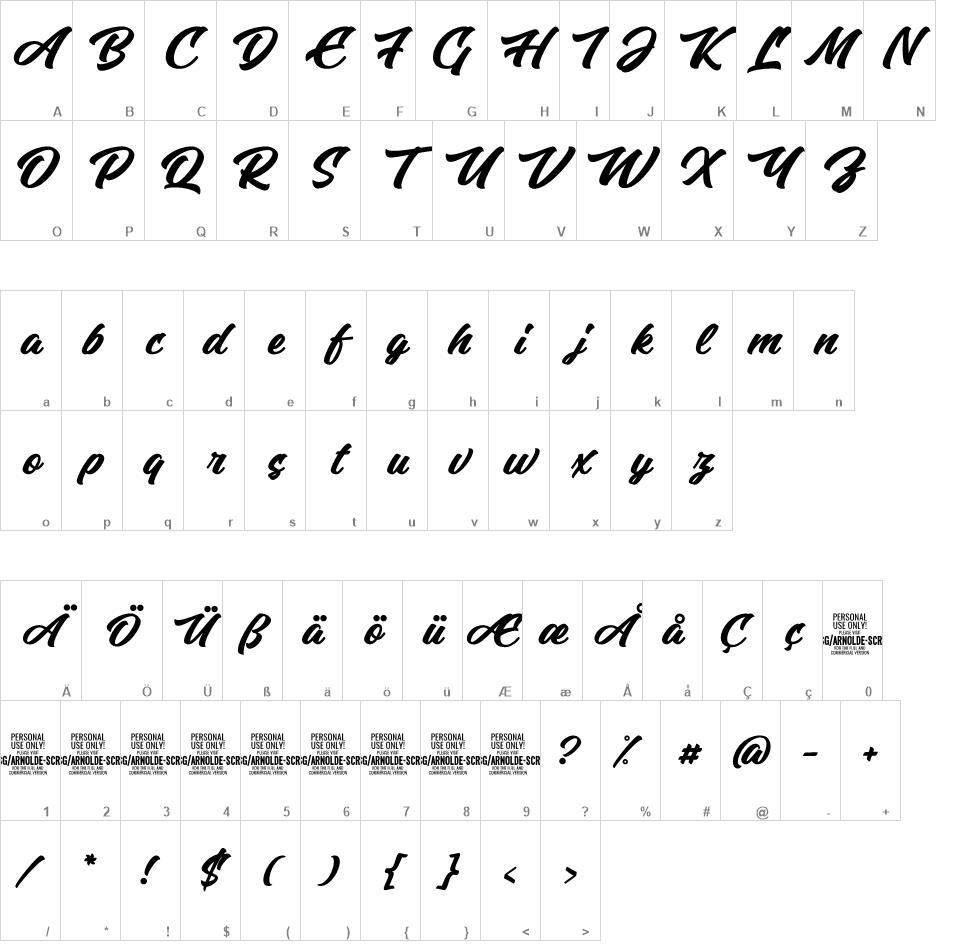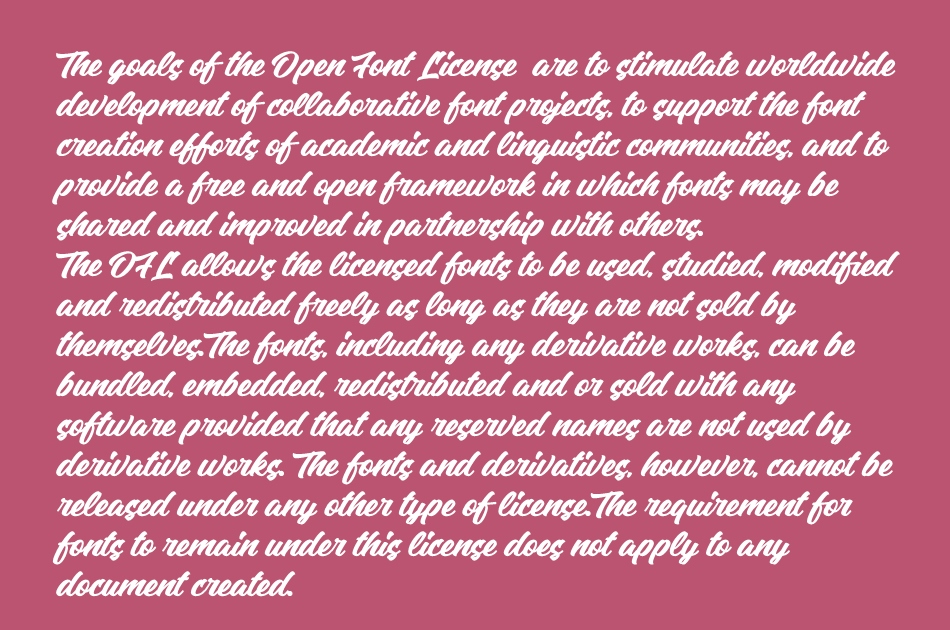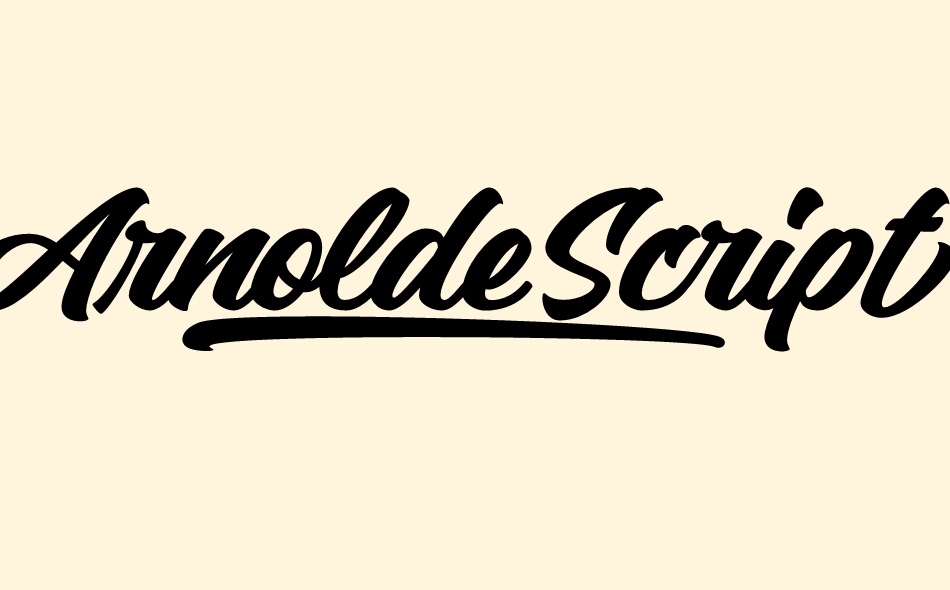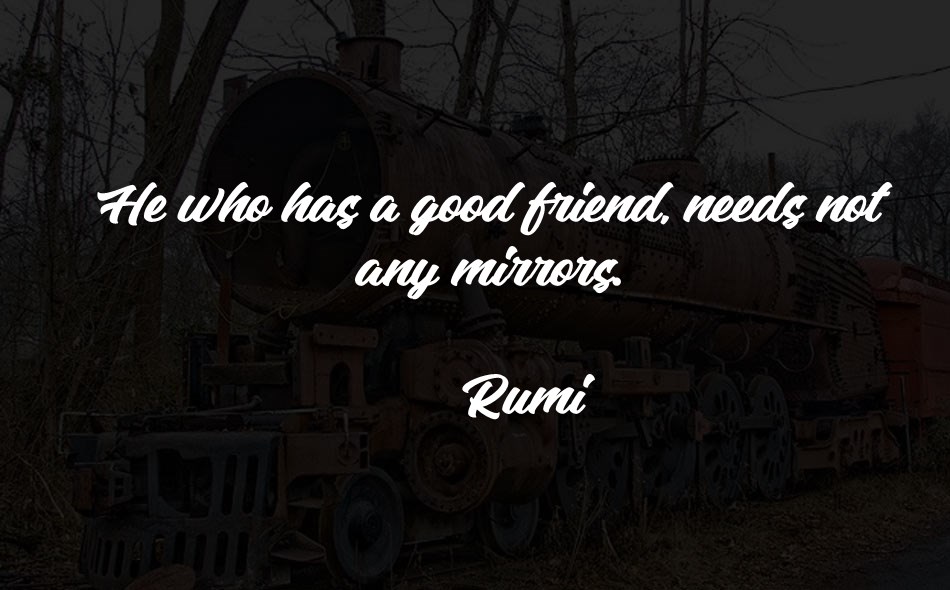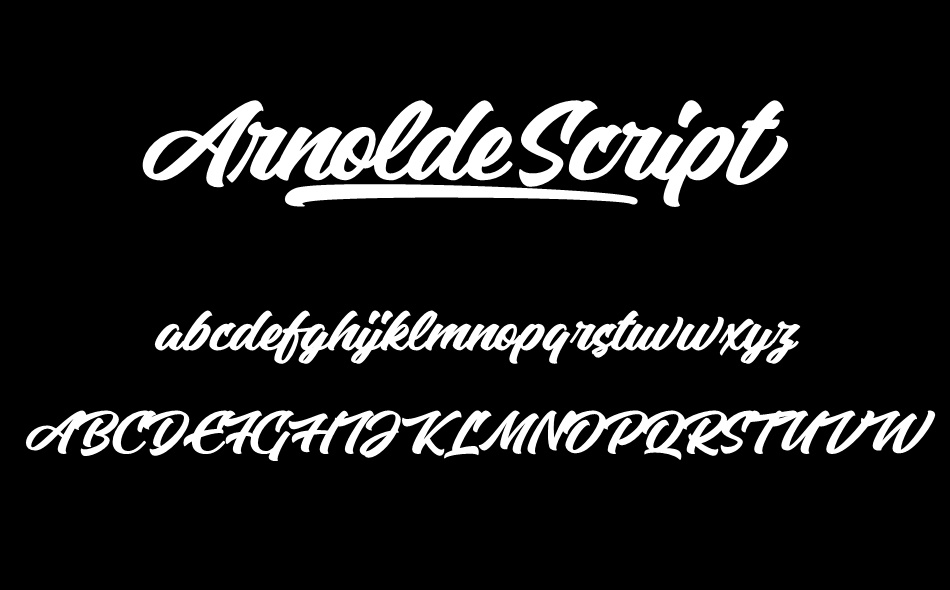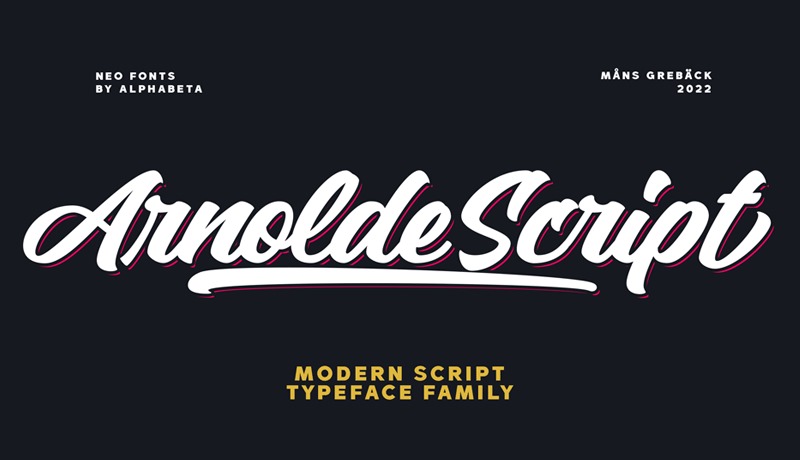
Arnolde Script font
Arnolde Script is a heavy script typeface, drawn to emit a strong personality. It has a bold expression and confident movements, and is perfect for a modern script logo.
Use underscore _ anywhere in a word to make an underline.
Example: Love_letter
Use multiple underscores to make different swashes.
Example: Cute_____ness
Use numbersign # after any letter to make a swash.
Example: Welcome# Back#
Arnolde Script font
Arnolde Script is a heavy script typeface.
Drawn and created between 2020 to 2022, this logotype lettering has a distinct style and a strong personality. It has a bold expression and confident movements, and is perfect for a modern script logo or cool headline.
Use underscore _ anywhere in a word to make an underline. Example: Love_letter
Use multiple underscores to make different swashes. Example: Cute_____ness
The typeface family consist of Regular and Italic.
The font is built with advanced OpenType functionality and has a guaranteed top-notch quality, containing stylistic and contextual alternates, ligatures and more features; all to give you full control and customizability. It has extensive lingual support, covering all Latin-based languages, from Northern Europe to South Africa, from America to South-East Asia. It contains all characters and symbols you'll ever need, including all punctuation and numbers.